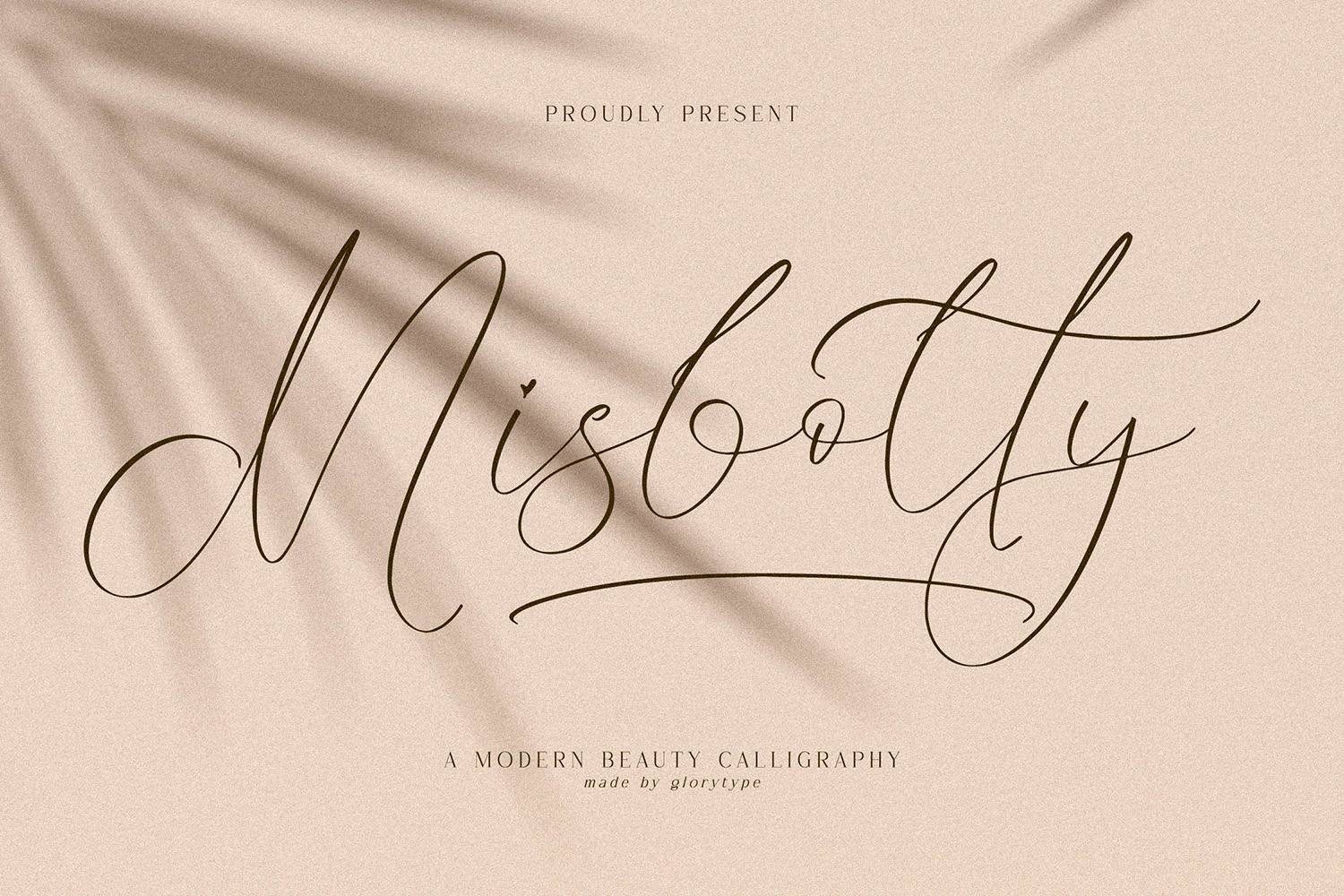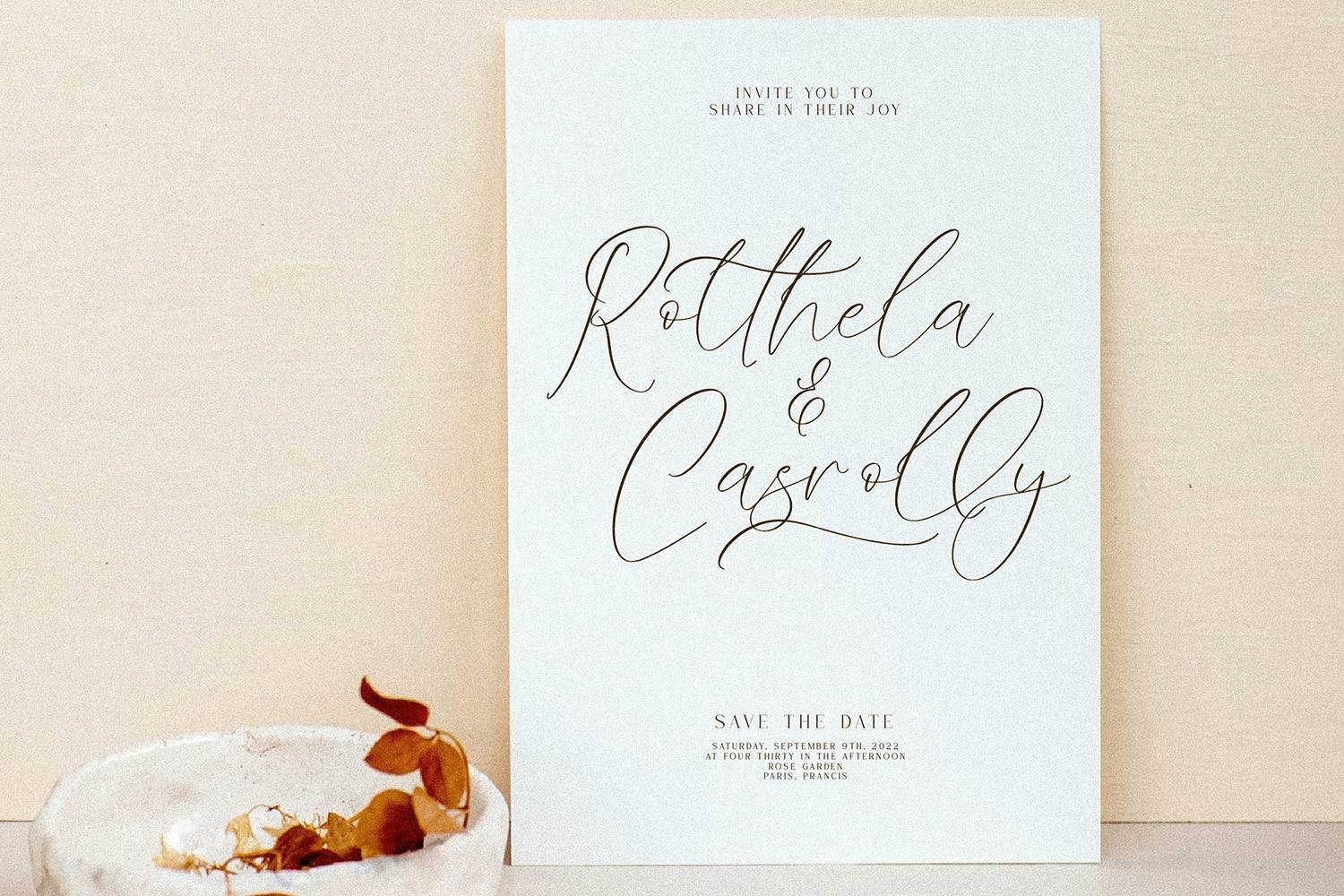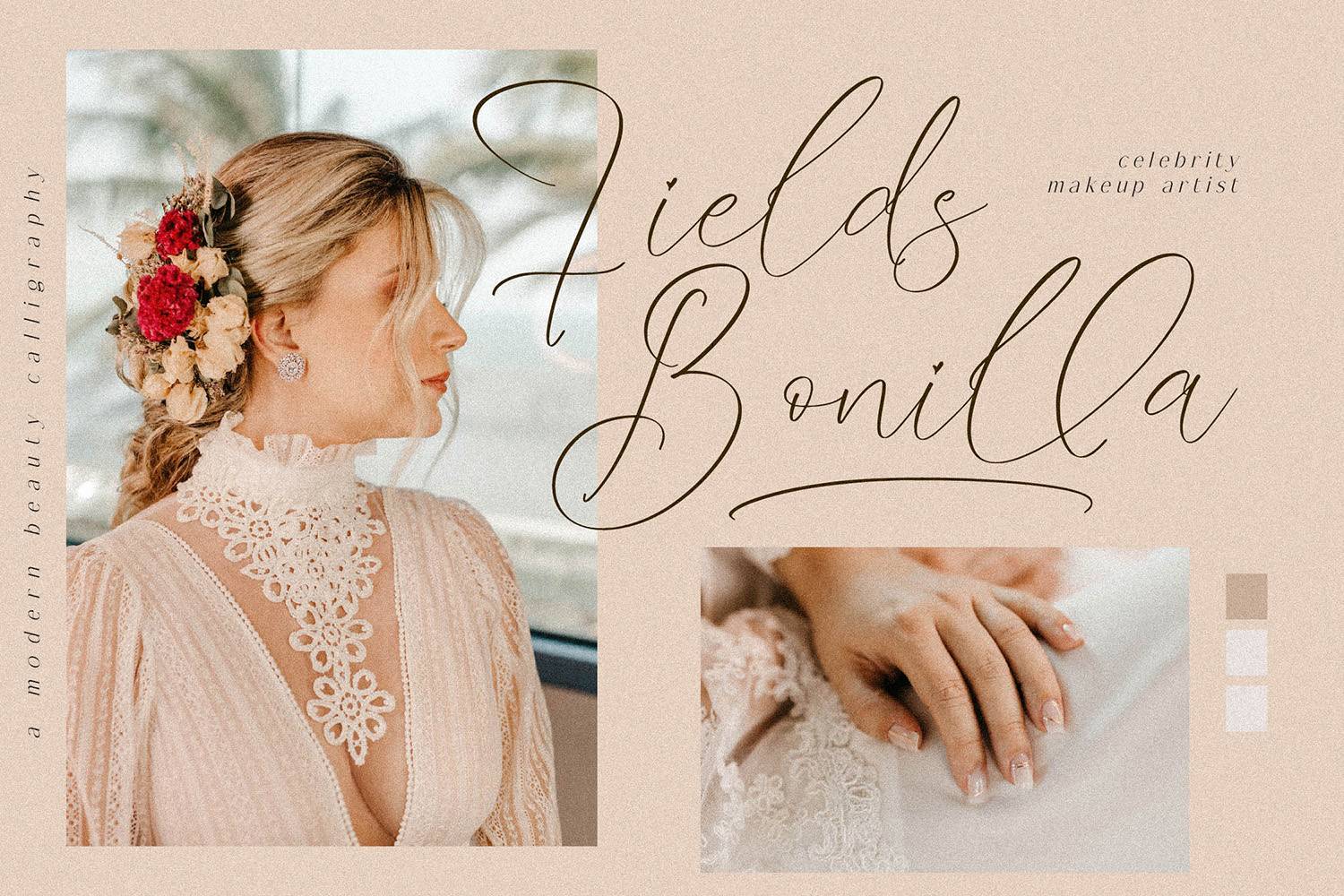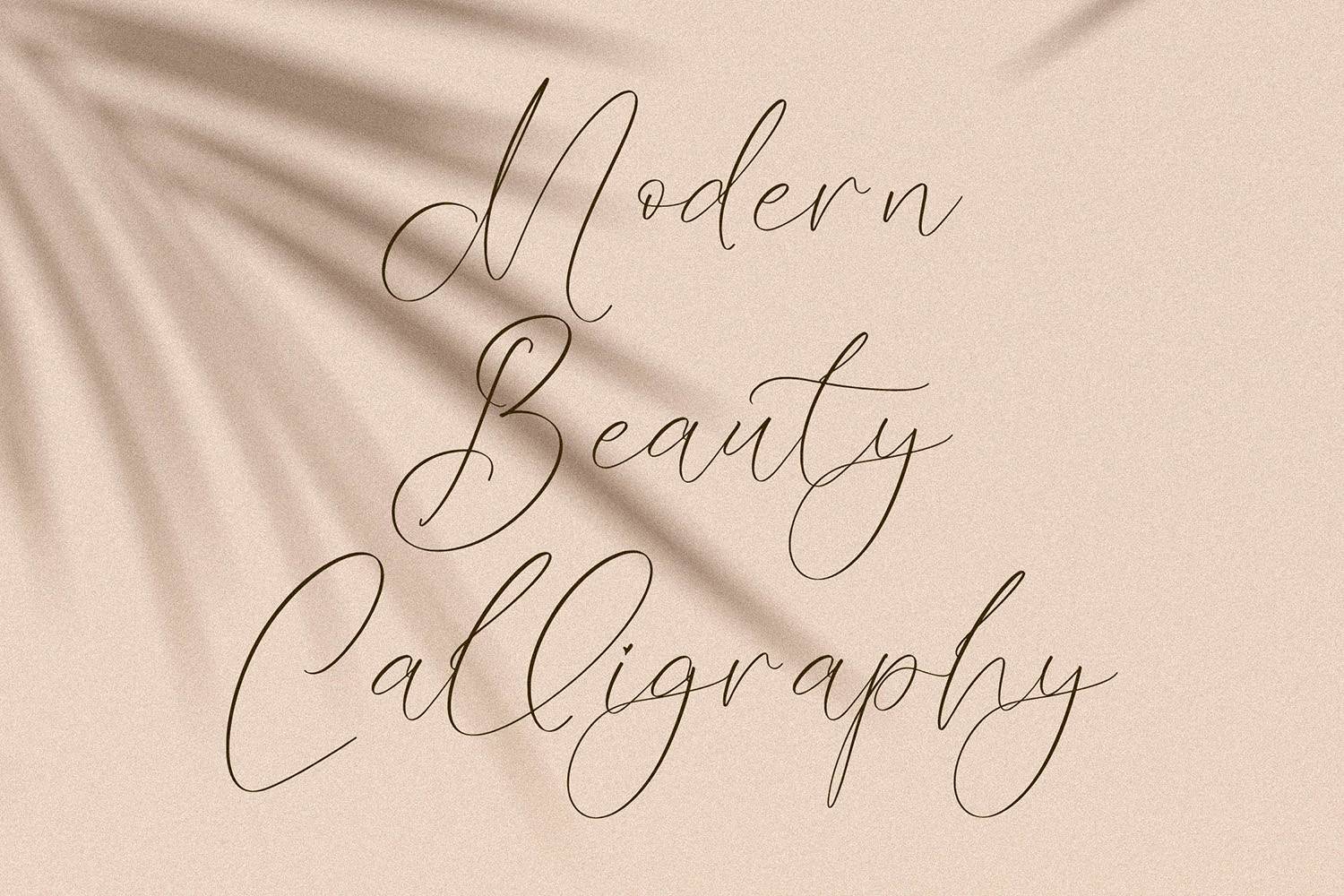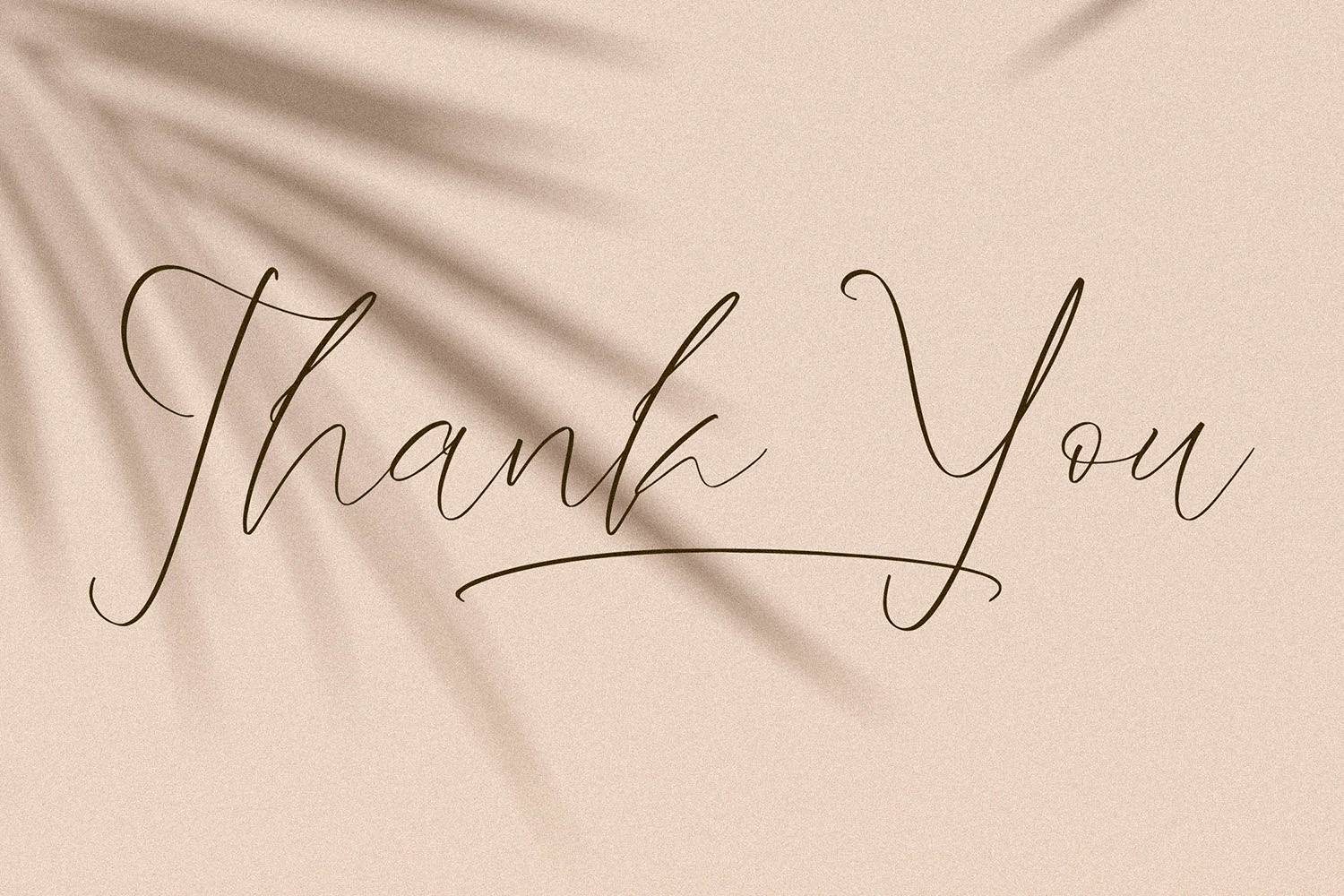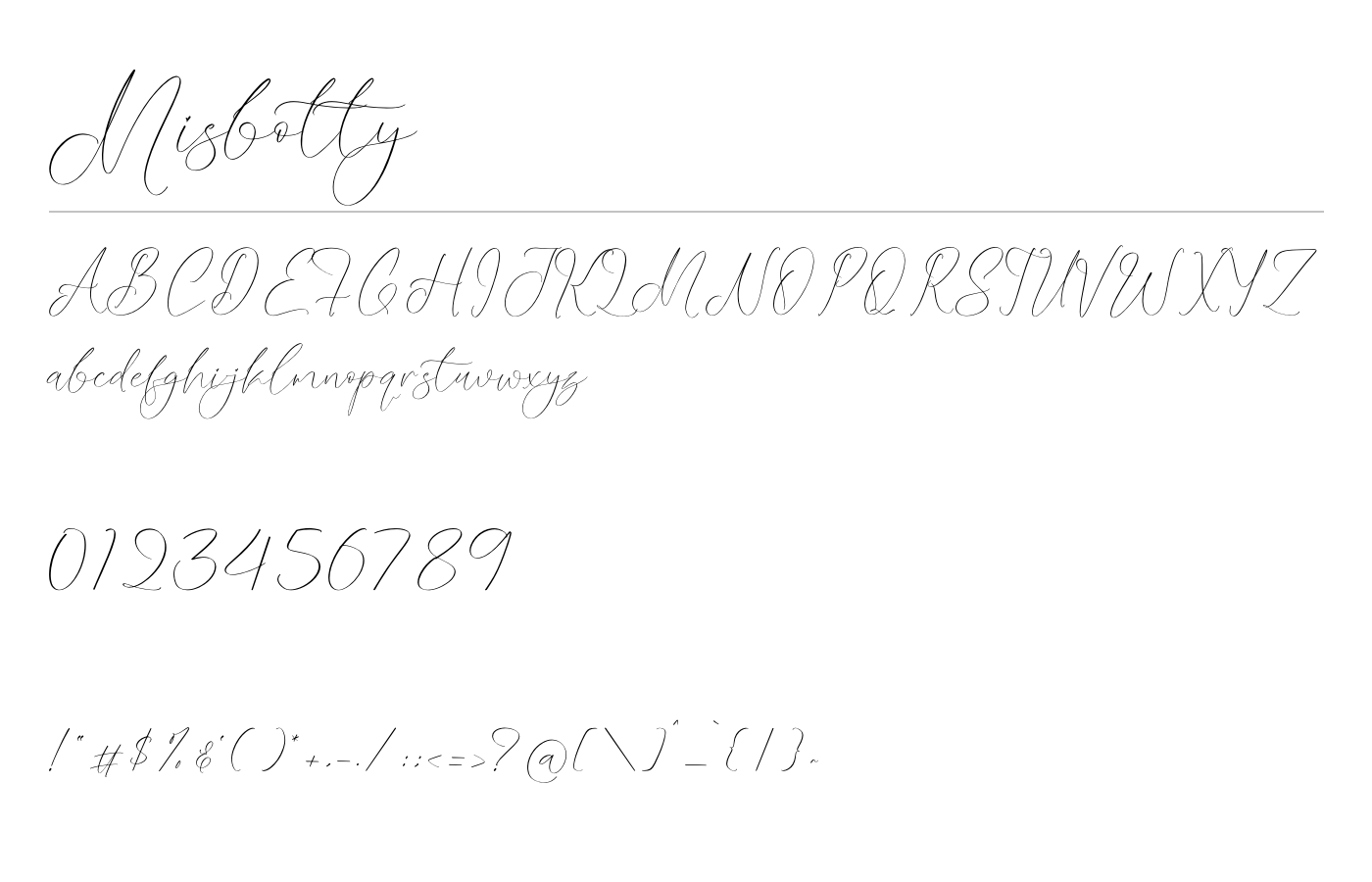
Misbotty is a delicate, script-style font with thin, flowing strokes that give it a graceful and elegant appearance. Its high-contrast, slender letterforms and cursive connections make it perfect for invitations, branding, or any design that seeks a sophisticated, handwritten touch. This font works especially well in luxury and fashion contexts where a refined, personal feel is desired.
Misbotty Font
About Misbotty Font